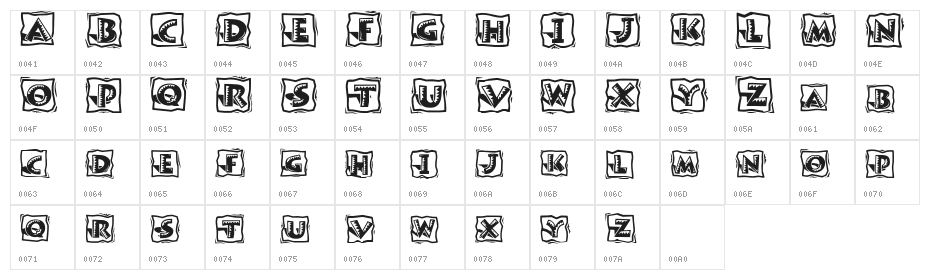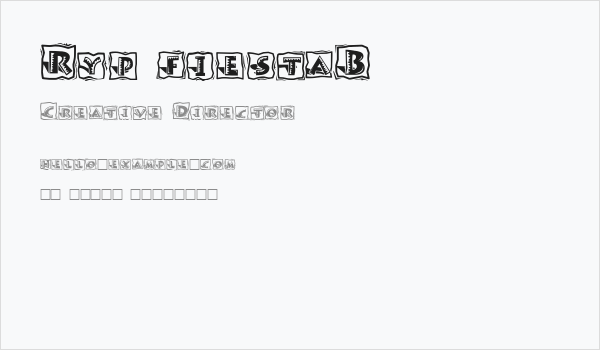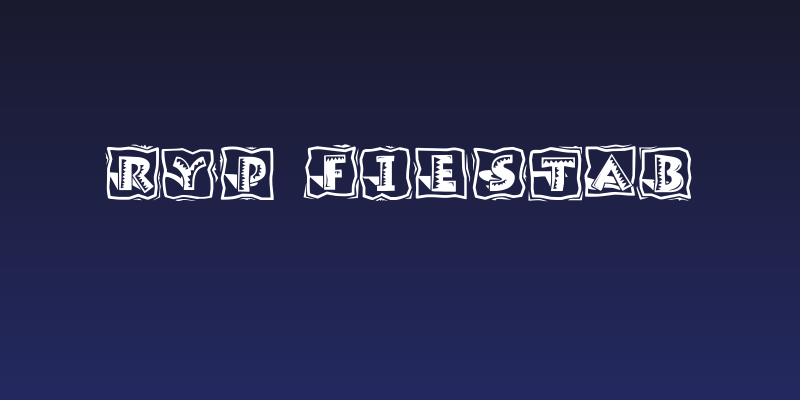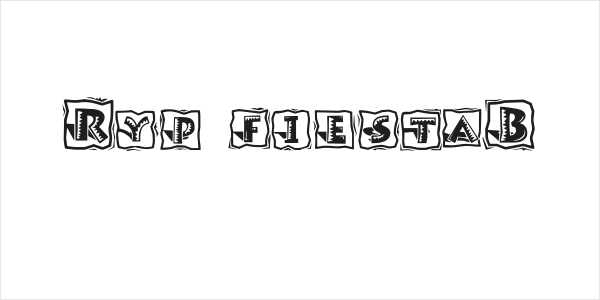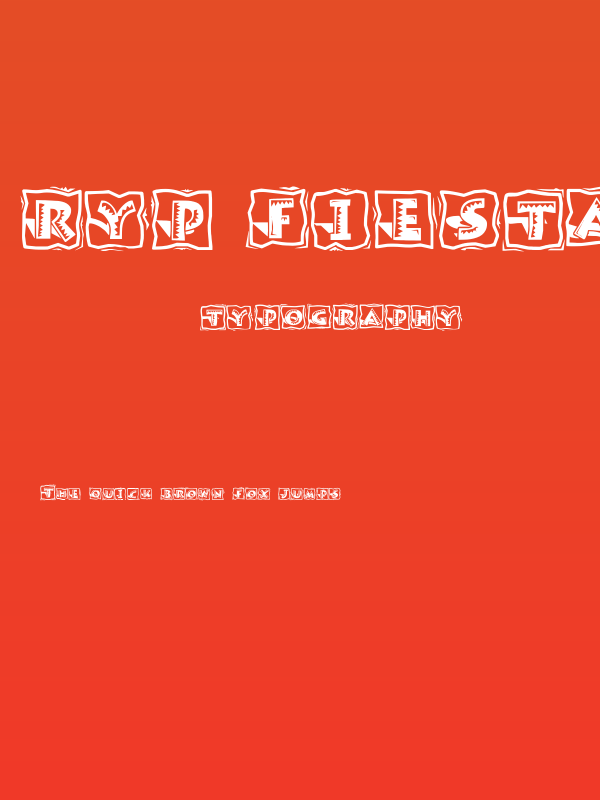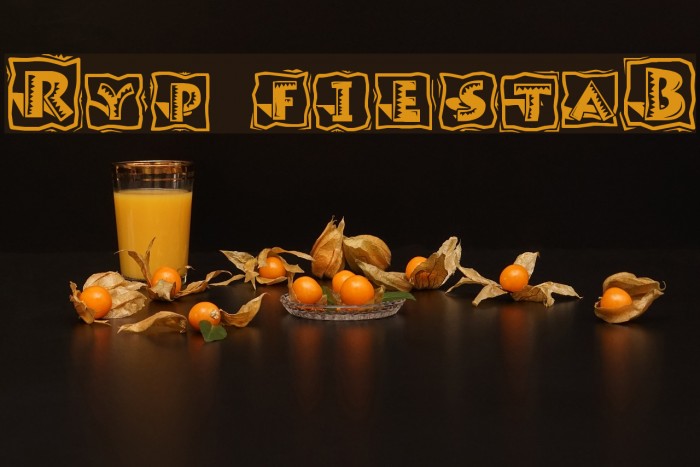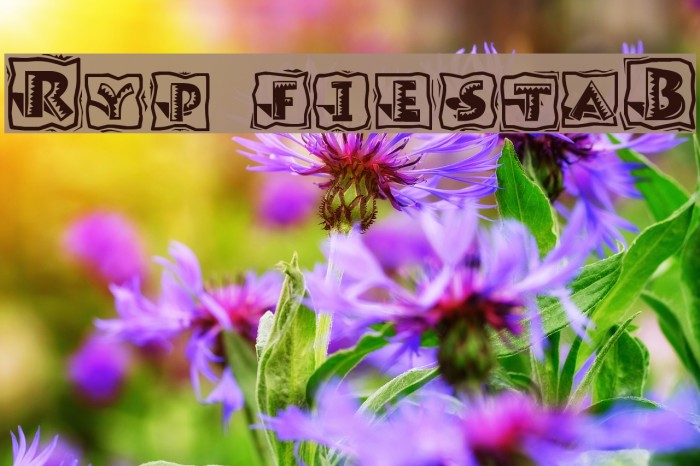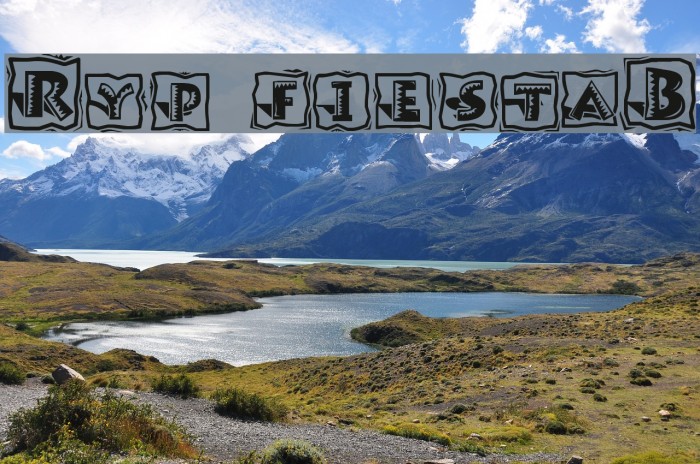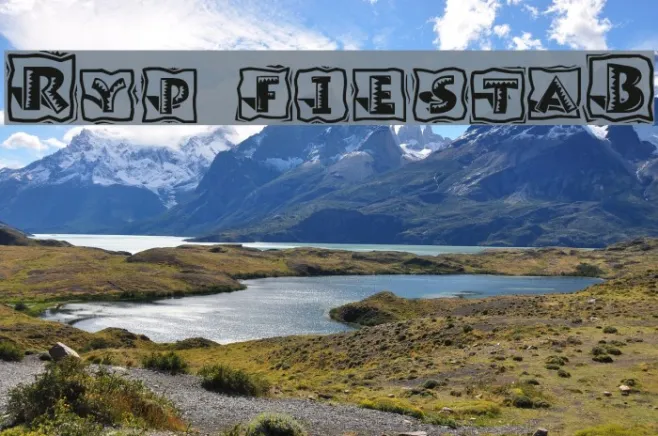
Ryp fiestaB Font
Ryp fiestaB Description
This font features a bold, decorative style with a playful and dynamic appearance. Each character is enclosed in a rough, sketch-like border, giving it a hand-drawn, artistic feel. The letters are uppercase and have a slightly irregular shape, adding to the whimsical and festive vibe. The strokes are thick and consistent, providing a strong visual impact. This font is perfect for projects that require a fun and lively touch, such as party invitations, posters, or children's book covers.
| Proposed Projects | Ideal for party invitations, festive posters, children's book covers, and playful branding. |